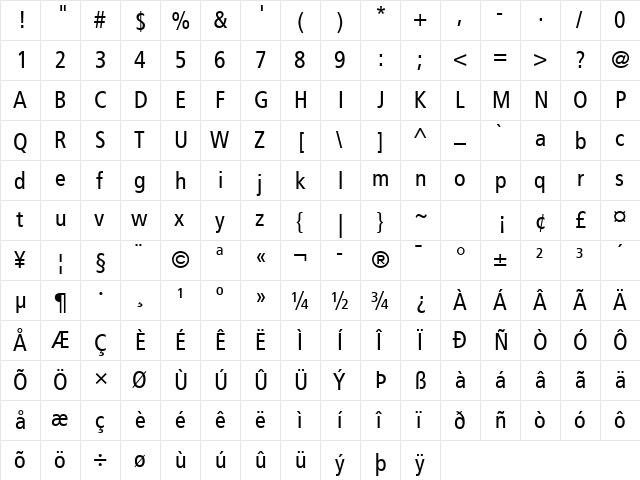
Frutiger LT Com 57 Condensed
| Foundry | Linotype GmbH |
| Designer | Adrian Frutiger |
Design Context for Frutiger LT Com Typeface
Frutiger LT Com offers clean, dependable letterforms without strong stylistic allegiance, making it a practical choice for designers who need flexibility. The delicate stroke weight brings airiness and refinement to layouts. Its narrow stance lets it pack a punch even in space-constrained designs.